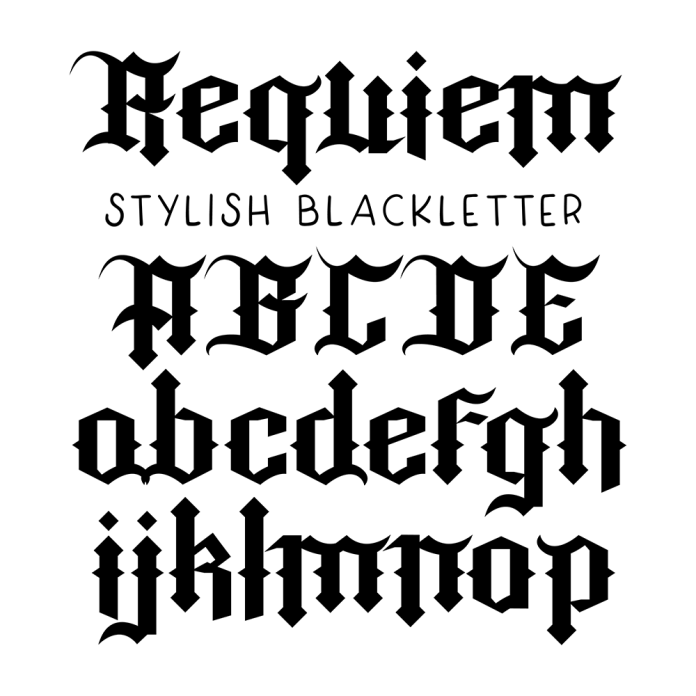
Requiem Blackletter Font is a hauntingly beautiful typeface perfect for Halloween-themed designs. Its intricate serifs and decorative elements give it a gothic and mysterious vibe. This font is ideal for creating spooky invitations, posters, and other Halloween-themed projects.